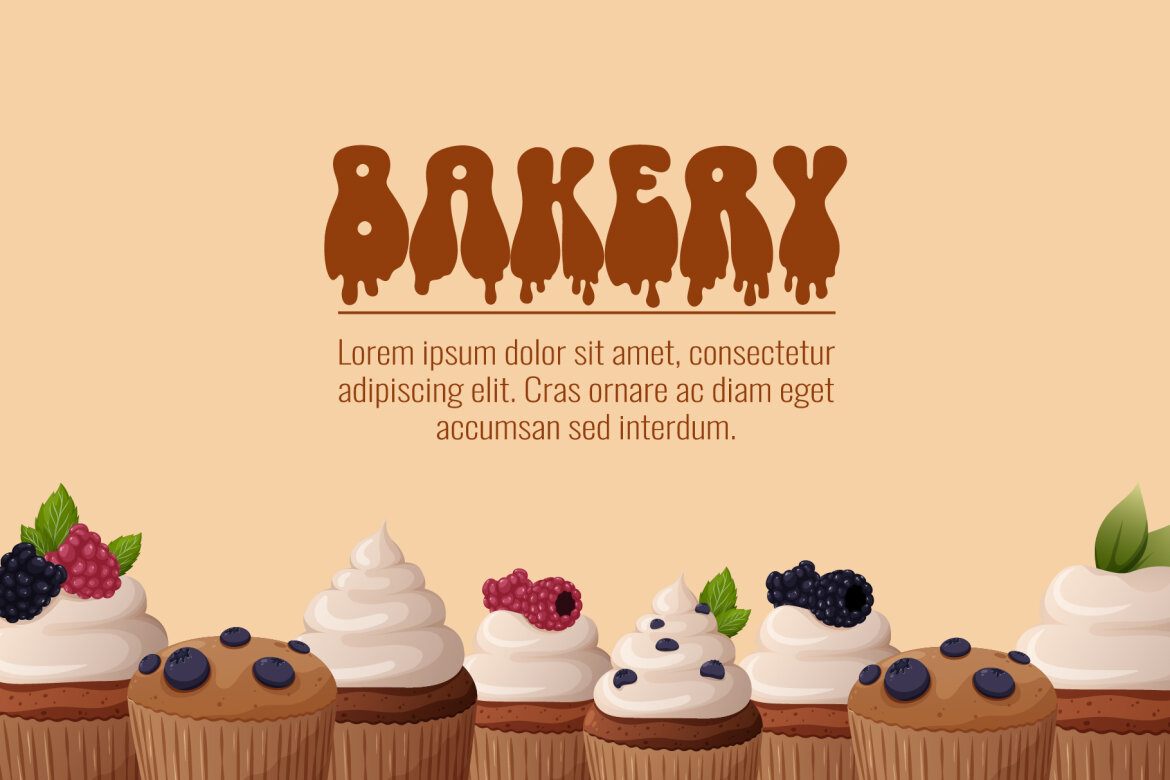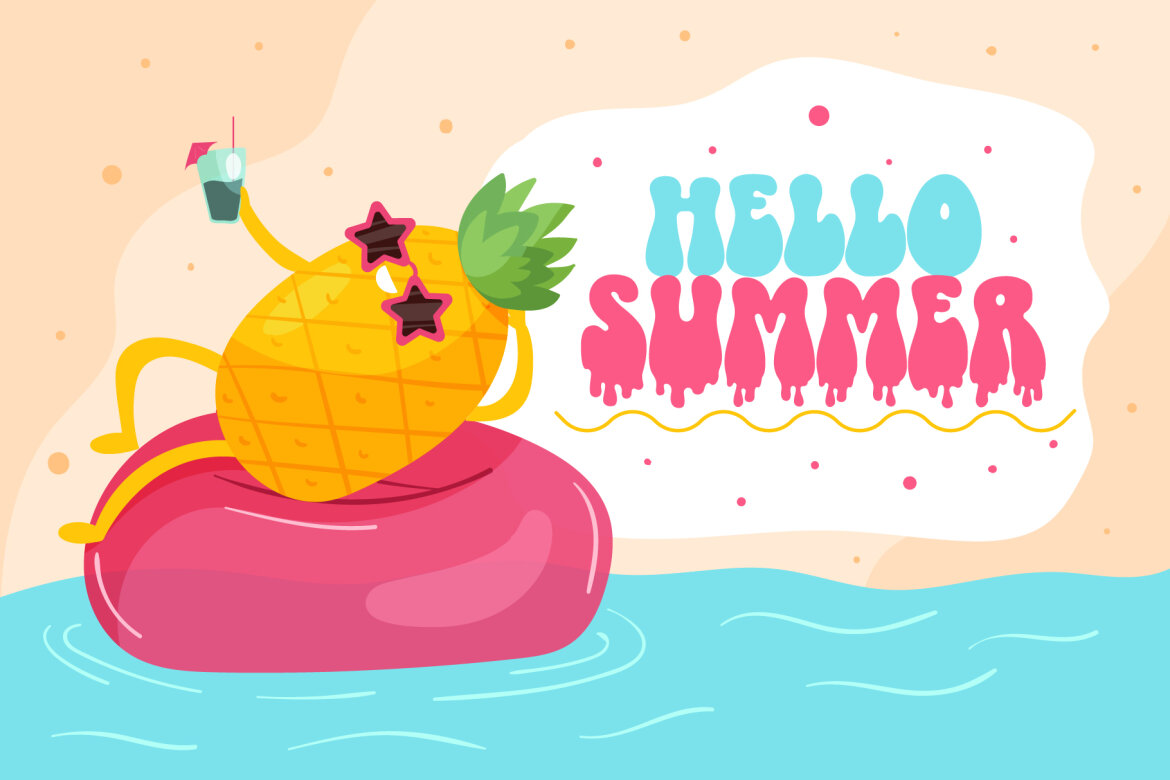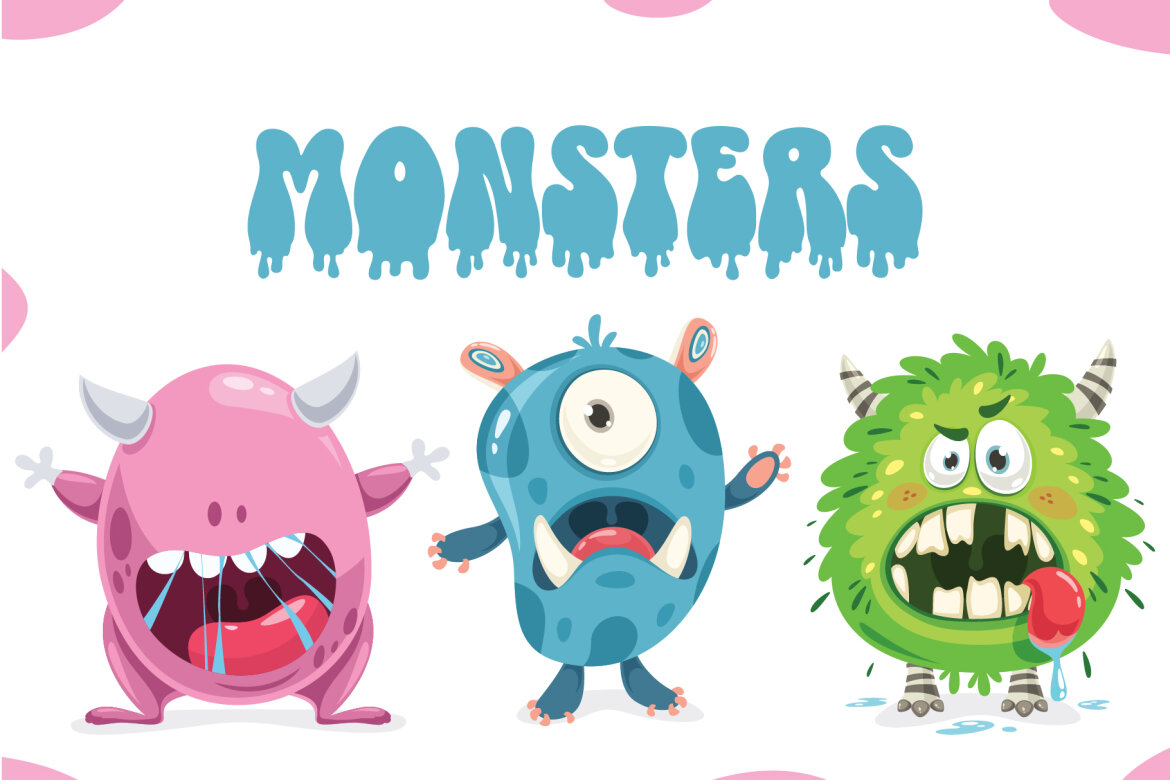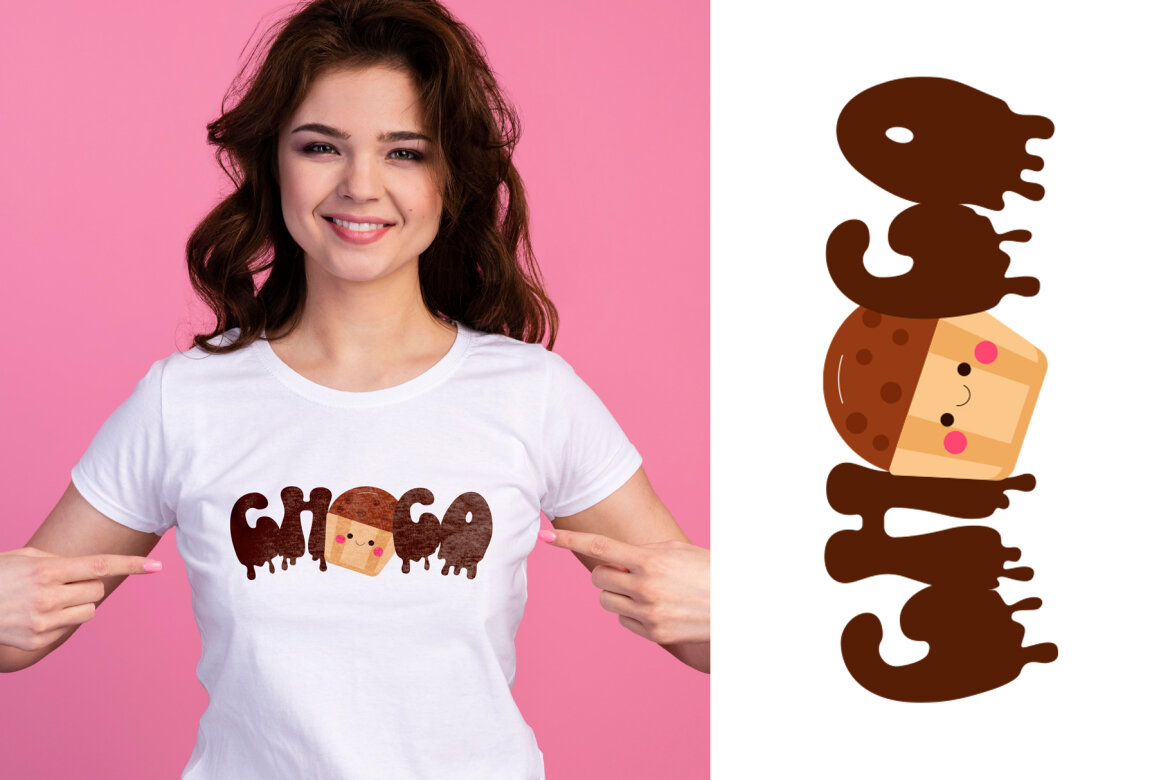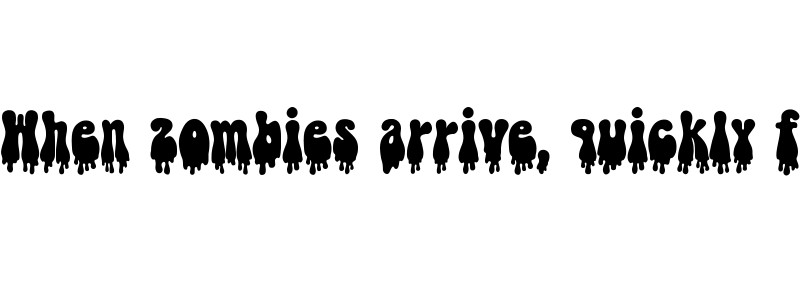
Cutesy Melt FREE Font
Cutesy Melt
Cutesy Melt is a decorative font that brings the Cutesy font to a more playful design to make it work in another way. Whatever the topic, this font will be a wonderful asset to your font library, as it has the potential to enhance any creation. Add this beautiful font to each of your creative ideas, and notice how it makes them stand out.